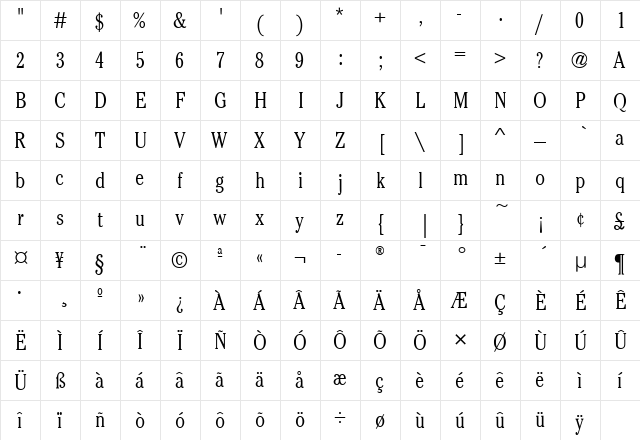
CheltenhamCdITC Light
Design Context for CheltenhamCdITC Typeface
CheltenhamCdITC takes a measured approach to typography — its balanced proportions and neutral character make it a reliable workhorse for both digital and print work. The delicate stroke weight brings airiness and refinement to layouts.